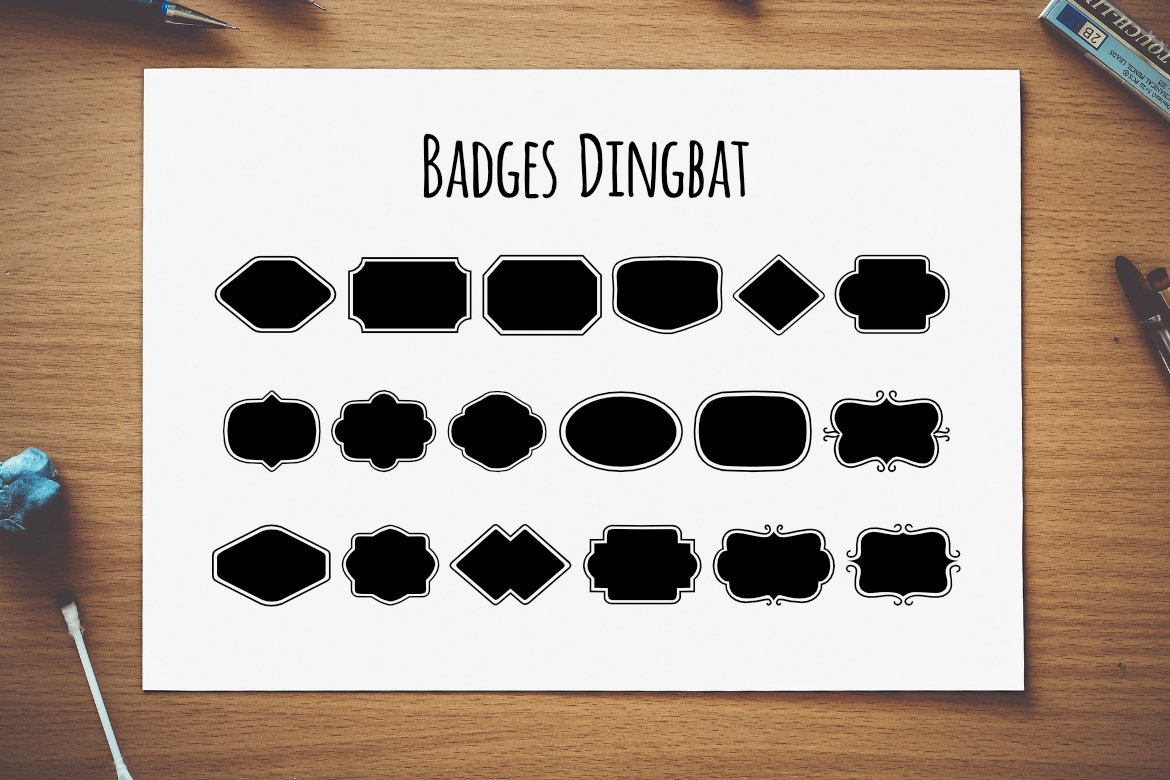
Crafting Whimsical Designs with Ease: The Magic of Badges Dingbat Font
Have you ever been working on a design project and suddenly, the perfect icon or image pops into your head, elevating your entire concept? It’s those ‘aha’ moments that make design truly magical. For many of us, the search for the perfect visual element can be a tedious process, but what if you had a treasure trove of cute and fun dingbats at your fingertips?
Enter the Badges Dingbat Font, a delightful set of design assets specifically crafted to add a touch of whimsy and personality to your projects. This charming font is perfect for anchoring your designs in stunning and well-crafted visual elements that capture the imagination. As a designer, you’ll appreciate the value of having such a versatile and customizable tool at your disposal.
- Unique Characteristics: The font features a unique dingbat design with badges, icons, and other graphical elements that can be used to create visually appealing graphics and text.
Overall, I think the Badges Dingbat Font is a fun and playful addition to any design project. ✨ I love how it adds a touch of whimsy and personality to text-based elements like buttons, icons, and even social media posts. The font’s bold lines and rounded edges give it a friendly, approachable feel that’s perfect for modern designs.
The Badges Dingbat Font is also incredibly versatile, with a wide range of glyphs and symbols to choose from. ✨ This makes it easy to find the perfect icon or graphic to match your design’s tone and style. From emotive faces to simple shapes, there’s something for every project.
- ⚠️ The font can be a bit overwhelming if used too liberally. It’s best to use it sparingly to avoid visual overload.
- ⚠️ Some of the glyphs may not be as detailed or refined as you’d like. This can be a issue if you’re looking for a more polished or professional look.
Overall, I’d say the Badges Dingbat Font is a great choice for designers looking to add some visual interest and personality to their projects. Just be mindful of the limitations and use it judiciously to get the most out of it.
Badges Dingbat Font is ideal for:
- Designing badges and labels for events and merchandise.
- Creating graphics for social media and websites.
- Developing visual identity for brands and businesses.